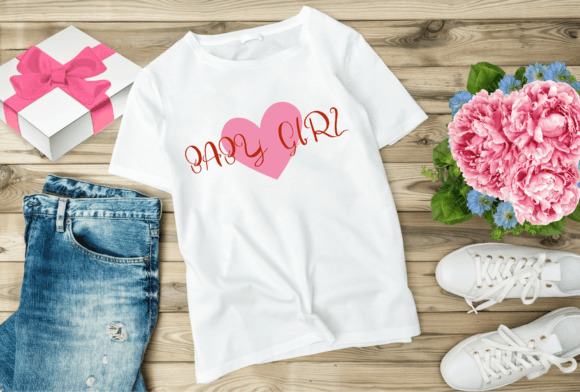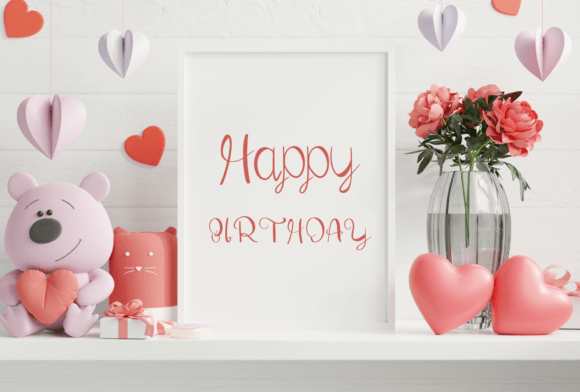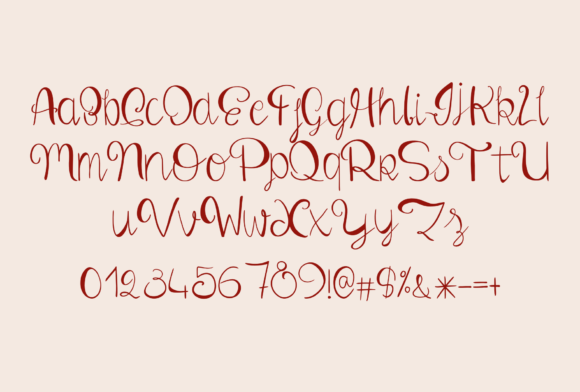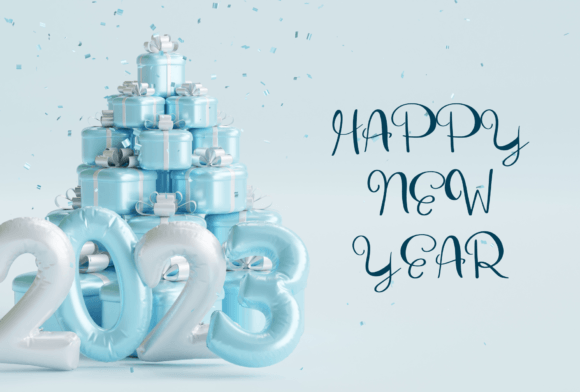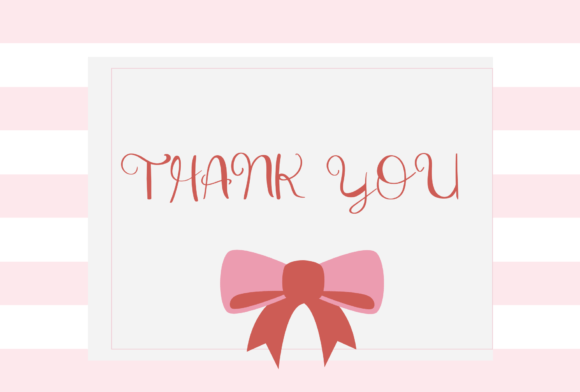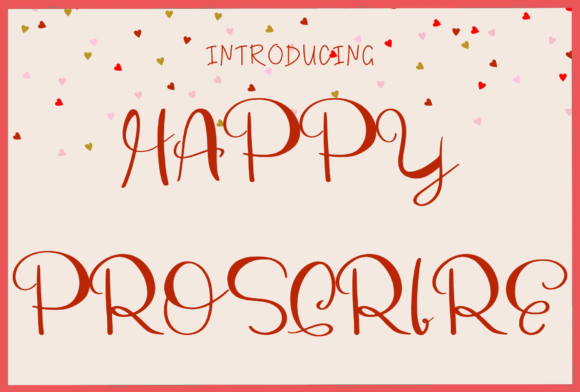
Introducing Happy Proscrire Font: The Ultimate Handwritten Script Font for Your Creative Projects
Are you tired of using the same old fonts for your design projects? Do you want to add a touch of personality and whimsy to your creations? Look no further than Happy Proscrire Font, a fun and stylish handwritten script font that’s sure to capture your heart. In this article, we’ll dive into the world of Happy Proscrire Font and explore its features, benefits, and uses, helping you to unlock its full potential and take your projects to the highest levels.
What is Happy Proscrire Font?
Happy Proscrire Font is a beautiful, handwritten script font that’s designed to add a personal touch to your designs. With its flowing curves, elegant lines, and charming imperfections, this font is perfect for a wide range of creative projects, from branding and advertising to crafting and DIY tutorials. Whether you’re a professional designer or a crafty hobbyist, Happy Proscrire Font is sure to inspire your creativity and bring a smile to your face.
Key Features of Happy Proscrire Font
• Handwritten script style: Happy Proscrire Font boasts a beautiful, handwritten script style that’s perfect for adding a personal touch to your designs.
• Fun and stylish: This font is designed to be fun and stylish, making it perfect for projects that require a playful and creative approach.
• Elegant lines and curves: Happy Proscrire Font features elegant lines and curves that give it a sophisticated and refined look.
• Charming imperfections: This font includes charming imperfections that add to its handmade charm and personality.
• High-quality design: Happy Proscrire Font is designed to the highest standards, ensuring that it looks great in any context.
Benefits of Using Happy Proscrire Font
So why choose Happy Proscrire Font for your design projects? Here are just a few benefits of using this amazing font:
• Adds personality to your designs: Happy Proscrire Font is a great way to add a personal touch to your designs and make them stand out from the crowd.
• Perfect for creative projects: This font is ideal for creative projects, such as crafting, DIY tutorials, and artistic endeavors.
• Easy to read and understand: Despite its playful style, Happy Proscrire Font is easy to read and understand, making it perfect for use in body text and captions.
• Versatile: This font can be used in a wide range of contexts, from digital designs to print materials.
Uses for Happy Proscrire Font
Happy Proscrire Font is a versatile font that can be used in a wide range of creative projects, including:
• Branding and advertising: Use Happy Proscrire Font to create eye-catching logos, ads, and marketing materials that showcase your brand’s personality.
• Crafting and DIY tutorials: Add a personal touch to your crafting and DIY tutorials with Happy Proscrire Font, perfect for titles, headings, and captions.
• Artistic endeavors: Happy Proscrire Font is a great choice for artistic projects, such as illustrations, paintings, and mixed media collages.
• Digital designs: Use this font in digital designs, such as social media graphics, blog posts, and email newsletters.
In conclusion, Happy Proscrire Font is a fun and stylish handwritten script font that’s perfect for designers, crafters, and creatives of all kinds. With its elegant lines, charming imperfections, and versatile uses, this font is sure to become a favorite in your design arsenal. So why wait? Fall in love with Happy Proscrire Font and bring your projects to the highest levels!